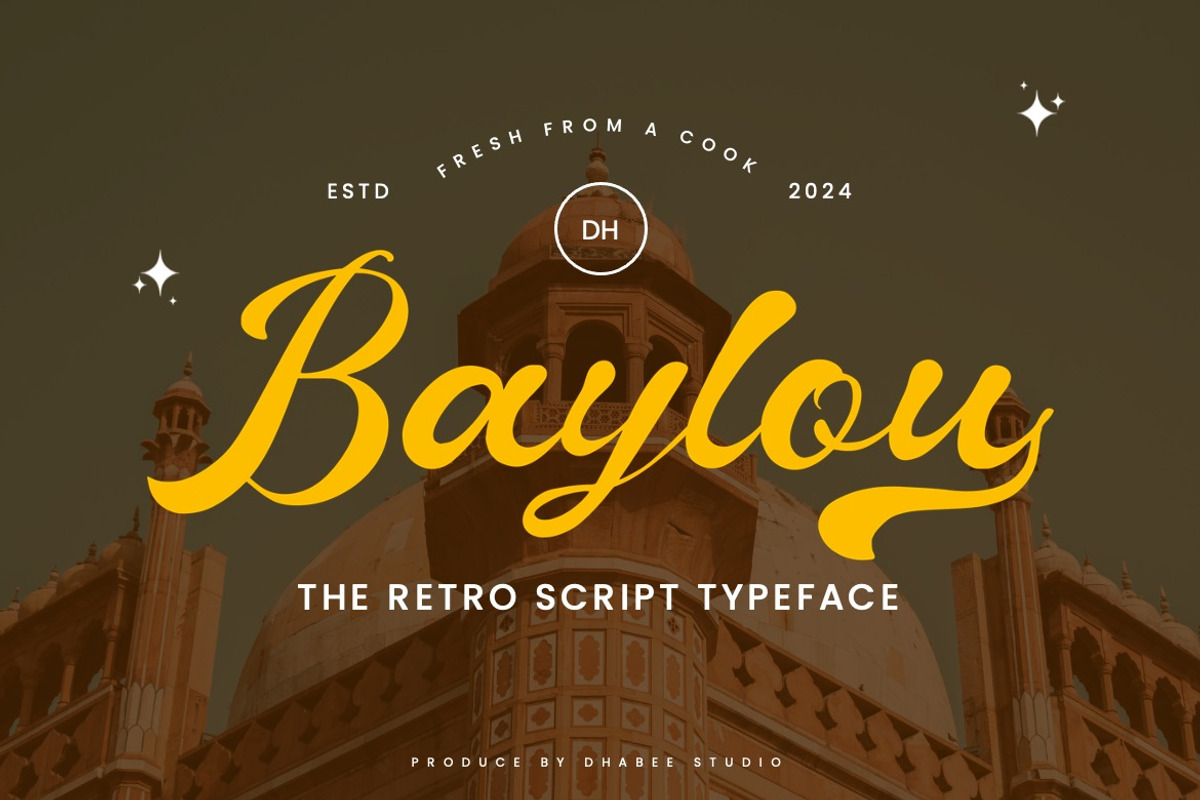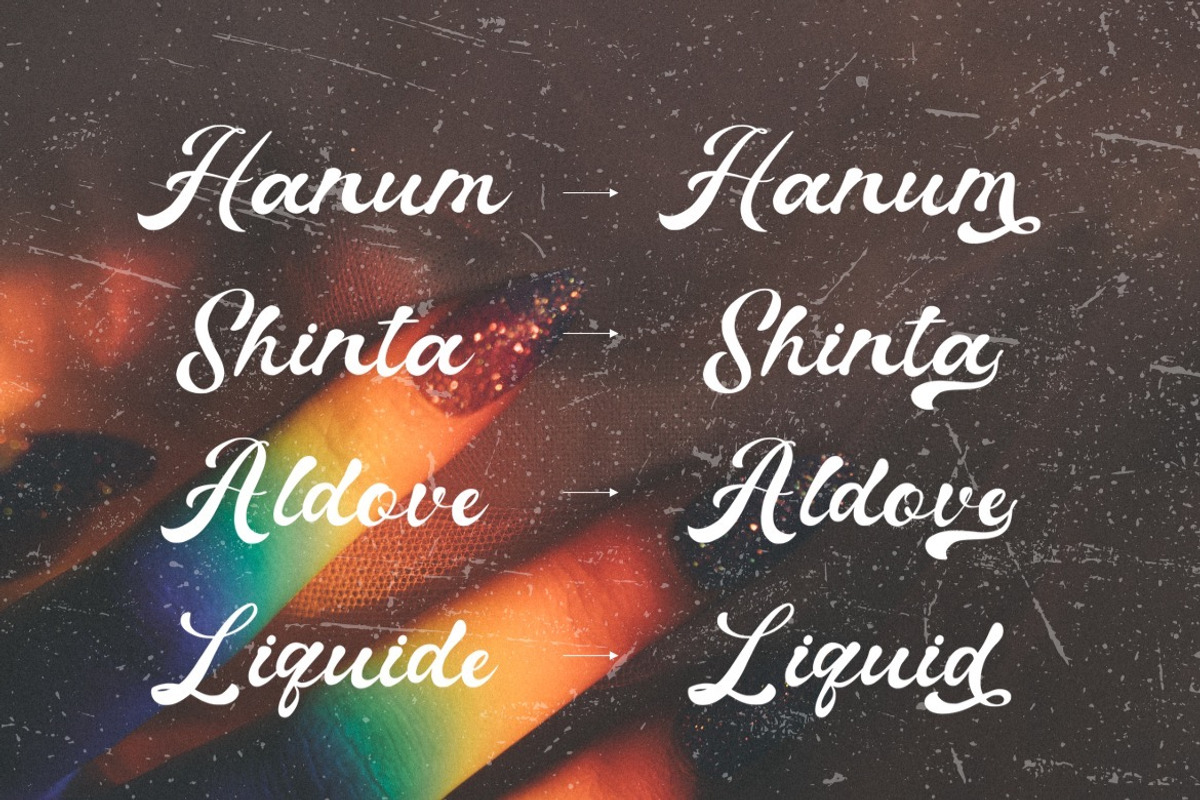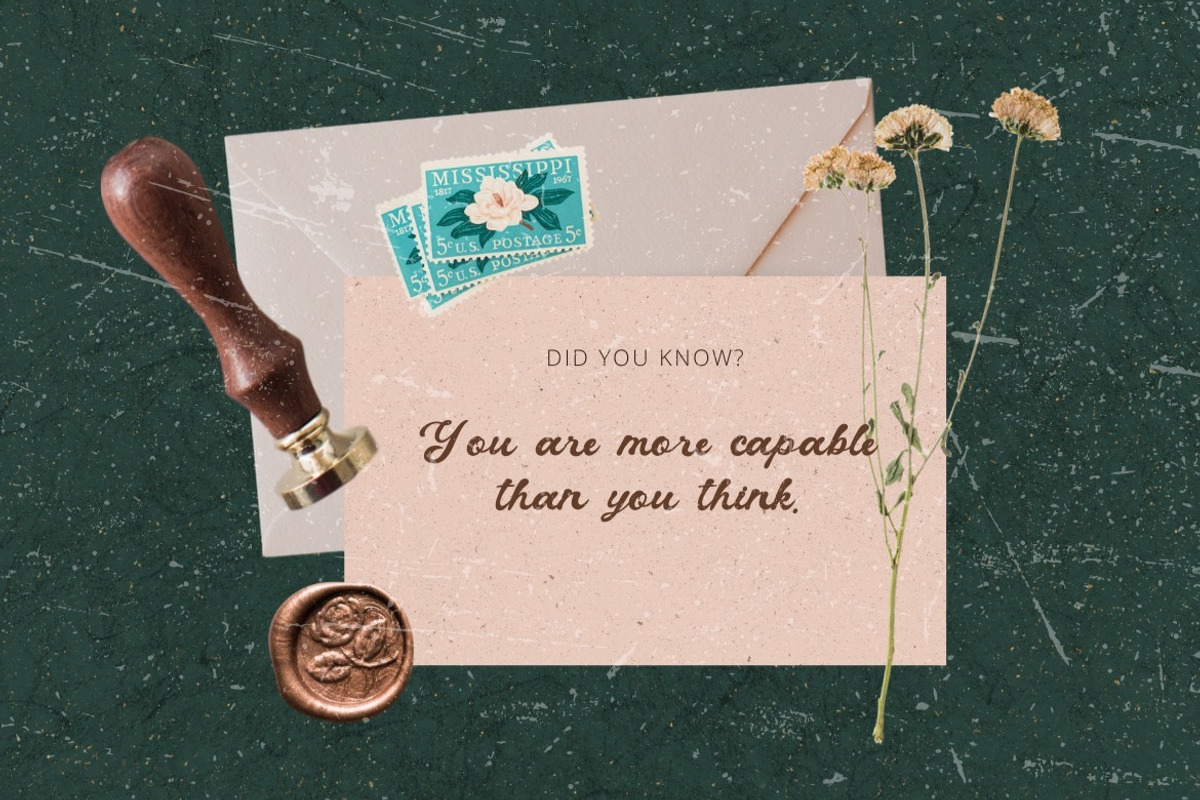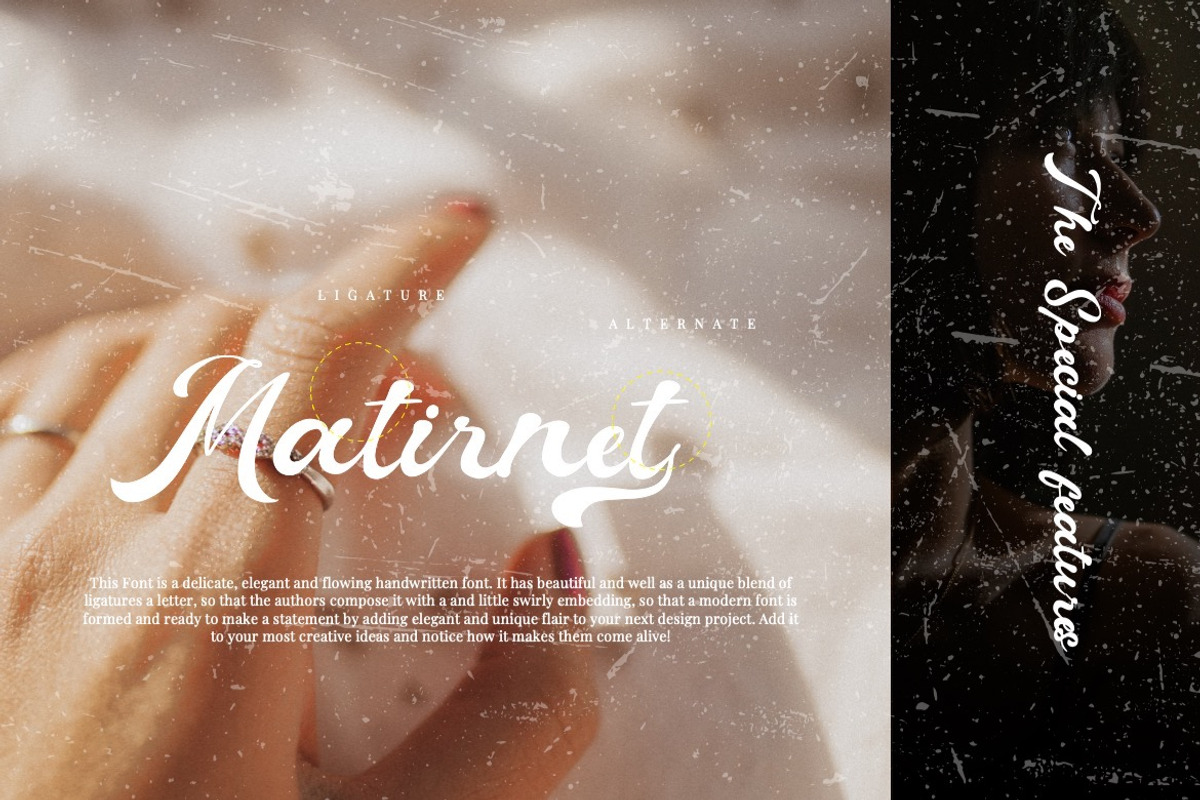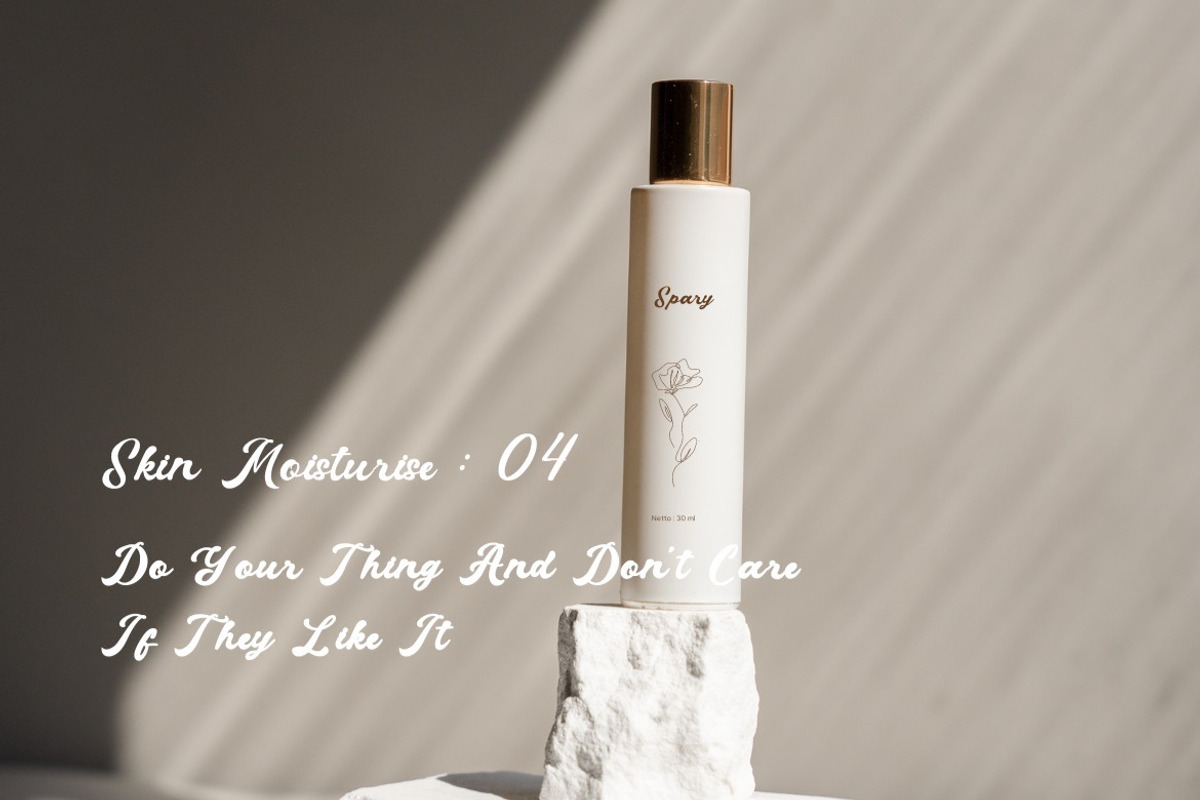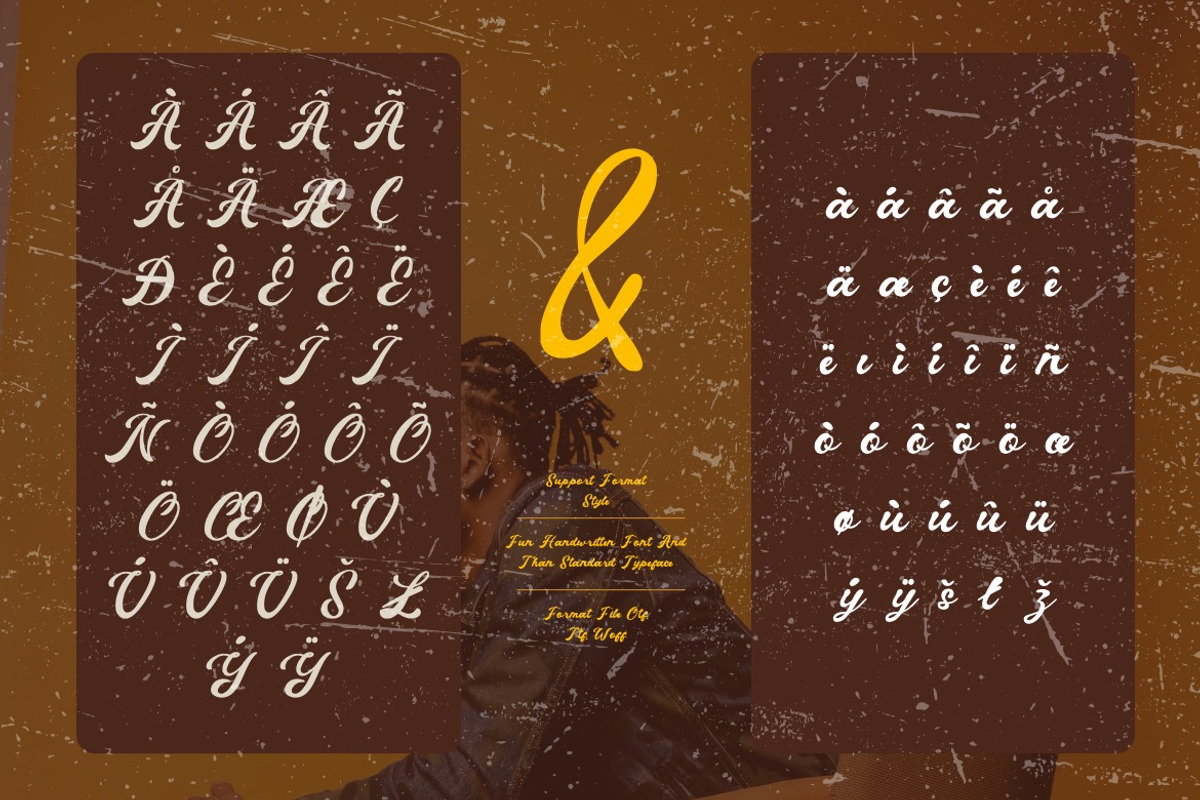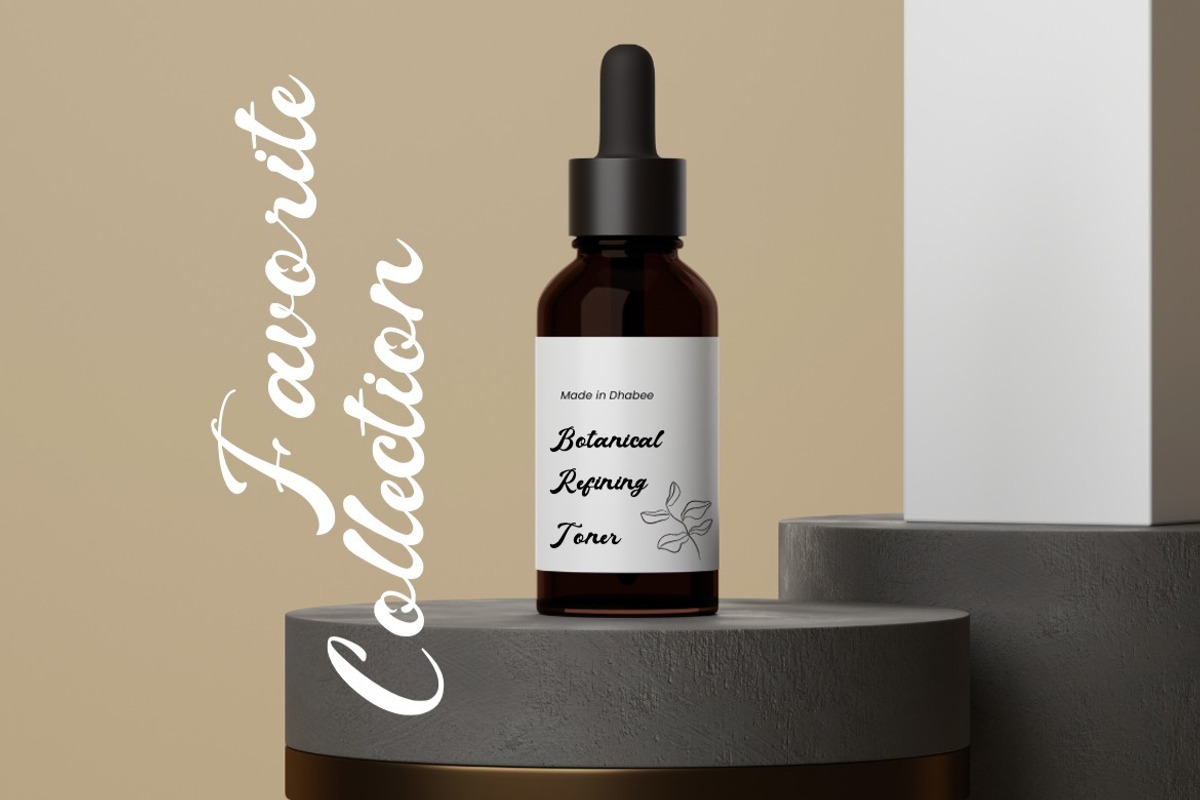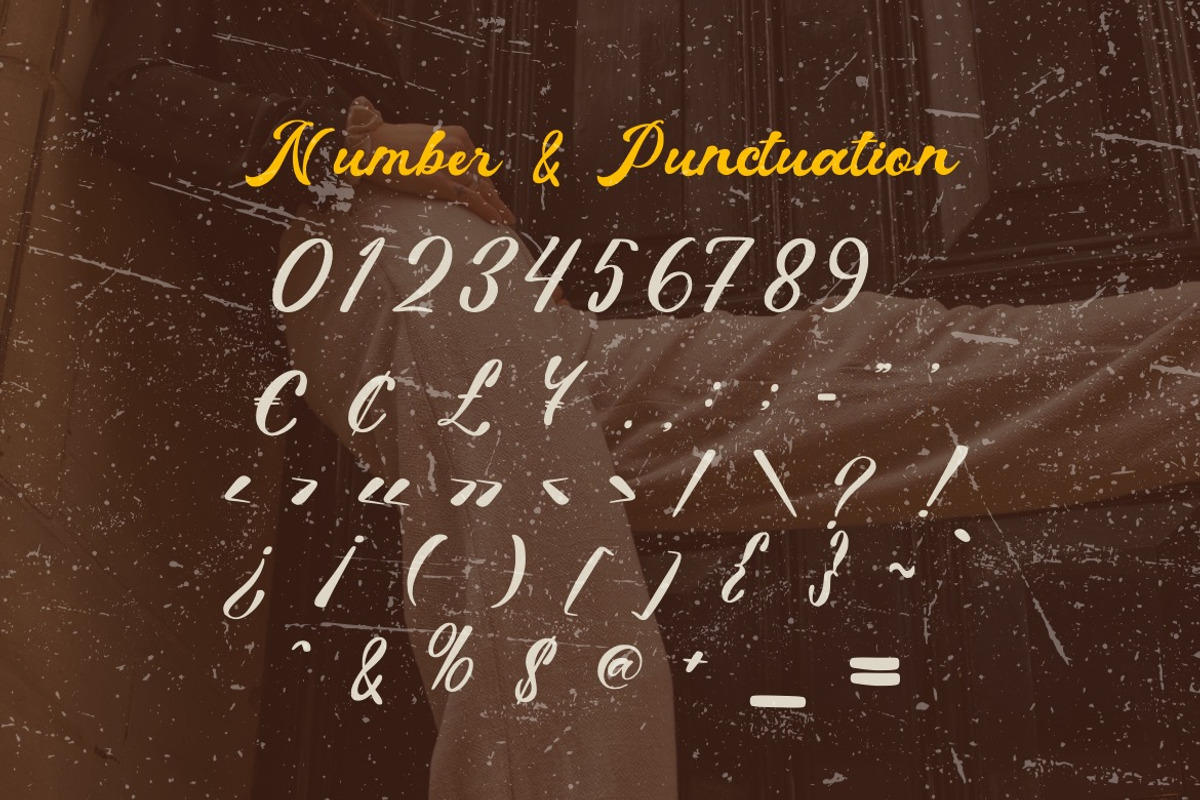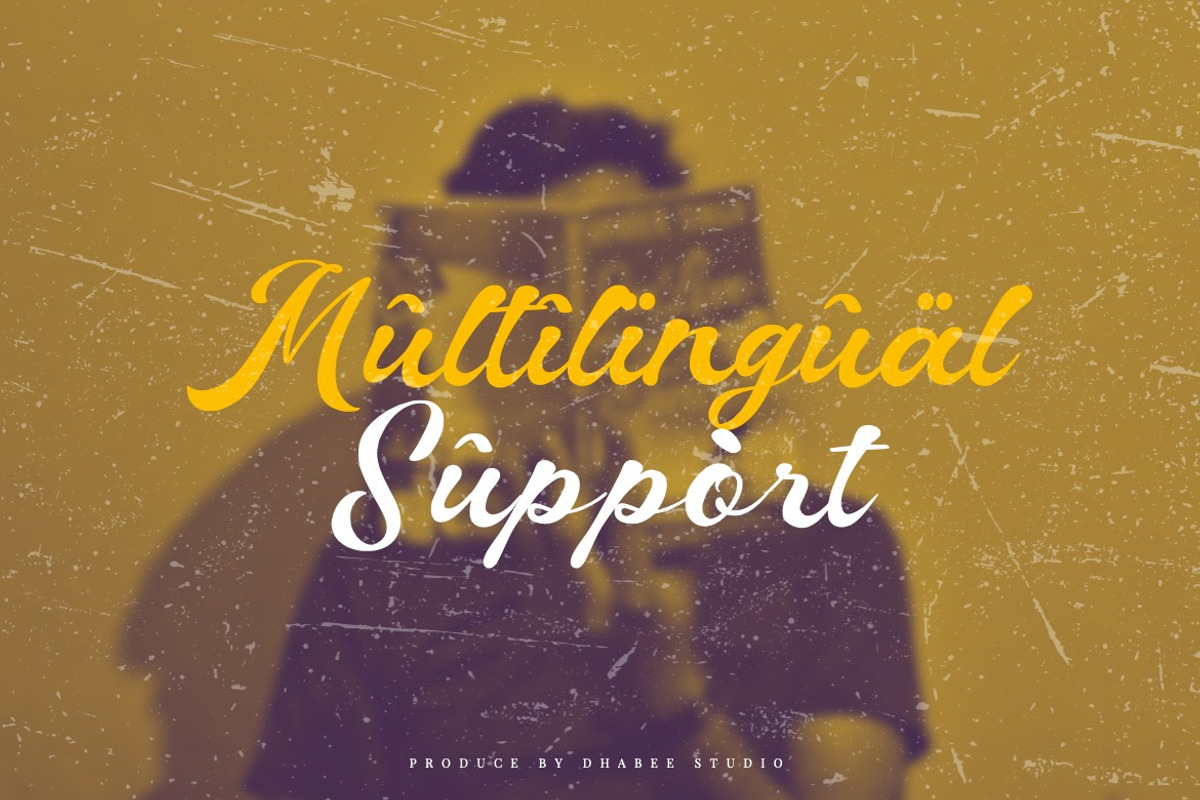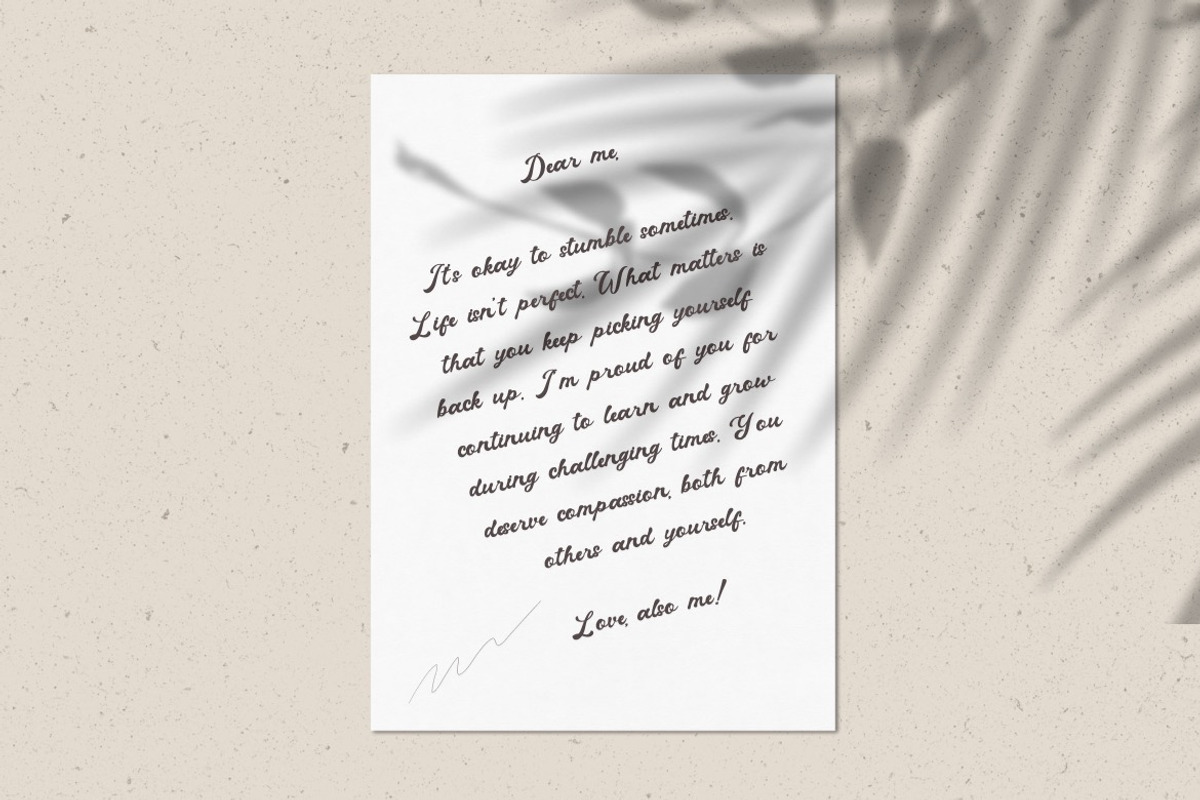
Baylou - Retro Script Font
Introducing Baylou - Retro Script Font
This Font is a delicate, elegant and flowing handwritten font. It has beautiful and well as a unique blend of ligatures a letter, so that the authors compose it with a and little swirly embedding, so that a modern font is formed and ready to make a statement by adding elegant and unique flair to your next design project. Add it to your most creative ideas and notice how it makes them come alive!
• Alternate & Ligature